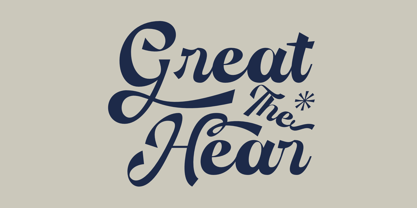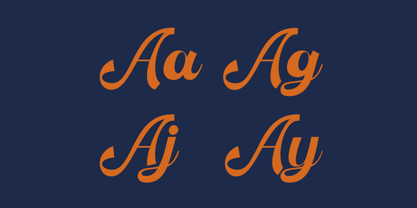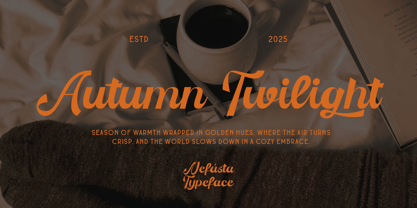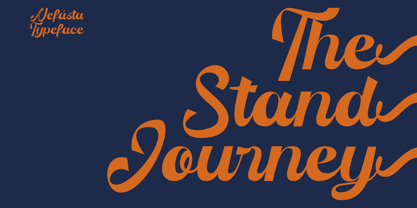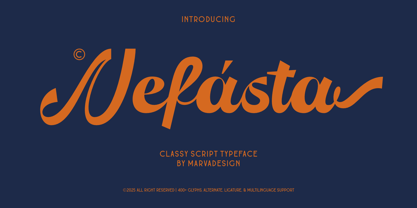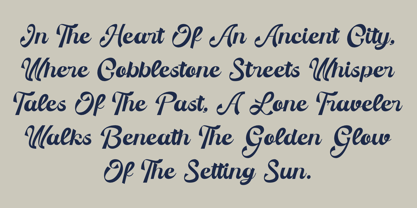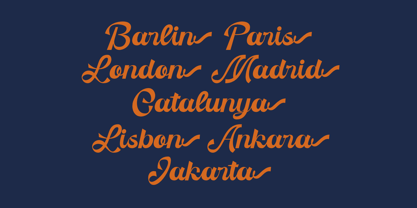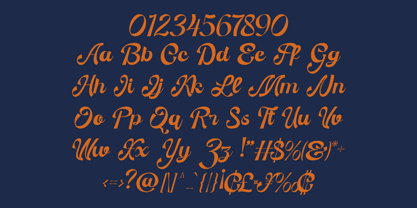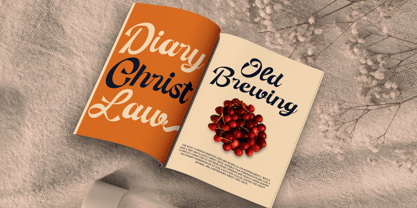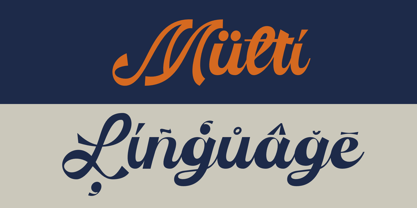
Nefasta
by Marvadesign
The Nefasta Font Family was designed by Febrie Setiawan and published by Marvadesign. Nefasta contains 1 styles. More about this family
Introducing the New Script Typeface Nefasta This font exudes elegance and sophistication with flowing cursive strokes and balanced letterforms. It has a classy, ​​high-contrast design with smooth curves and well-crafted ligatures, making it ideal for branding, editorial design, and luxury-themed projects.
The typography stands out with its smooth strokes and alternate glyphs, adding a sense of movement and elegance to every word. The harmonious balance between thick and thin strokes ensures readability while maintaining a stylish artistic appeal. Additionally, the multilingual support and over 400 glyphs in this font provide flexibility for a variety of design needs. Overall, Nefasta is a premium script typeface that combines classic calligraphy influences with a modern touch, making it suitable for logos, invitations, product packaging, and elegant typographic compositions.
Designers: Febrie Setiawan
Foundry: Marvadesign